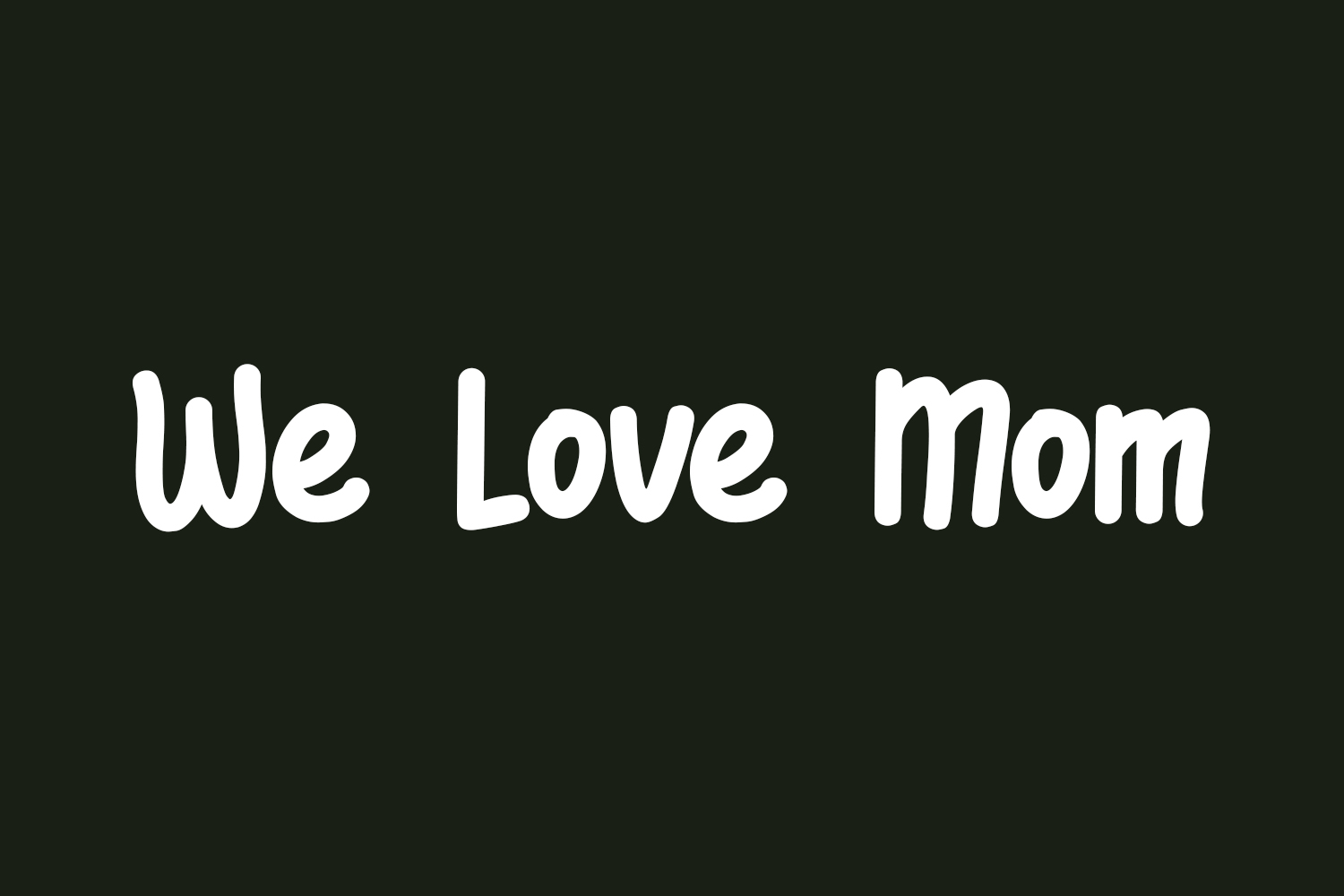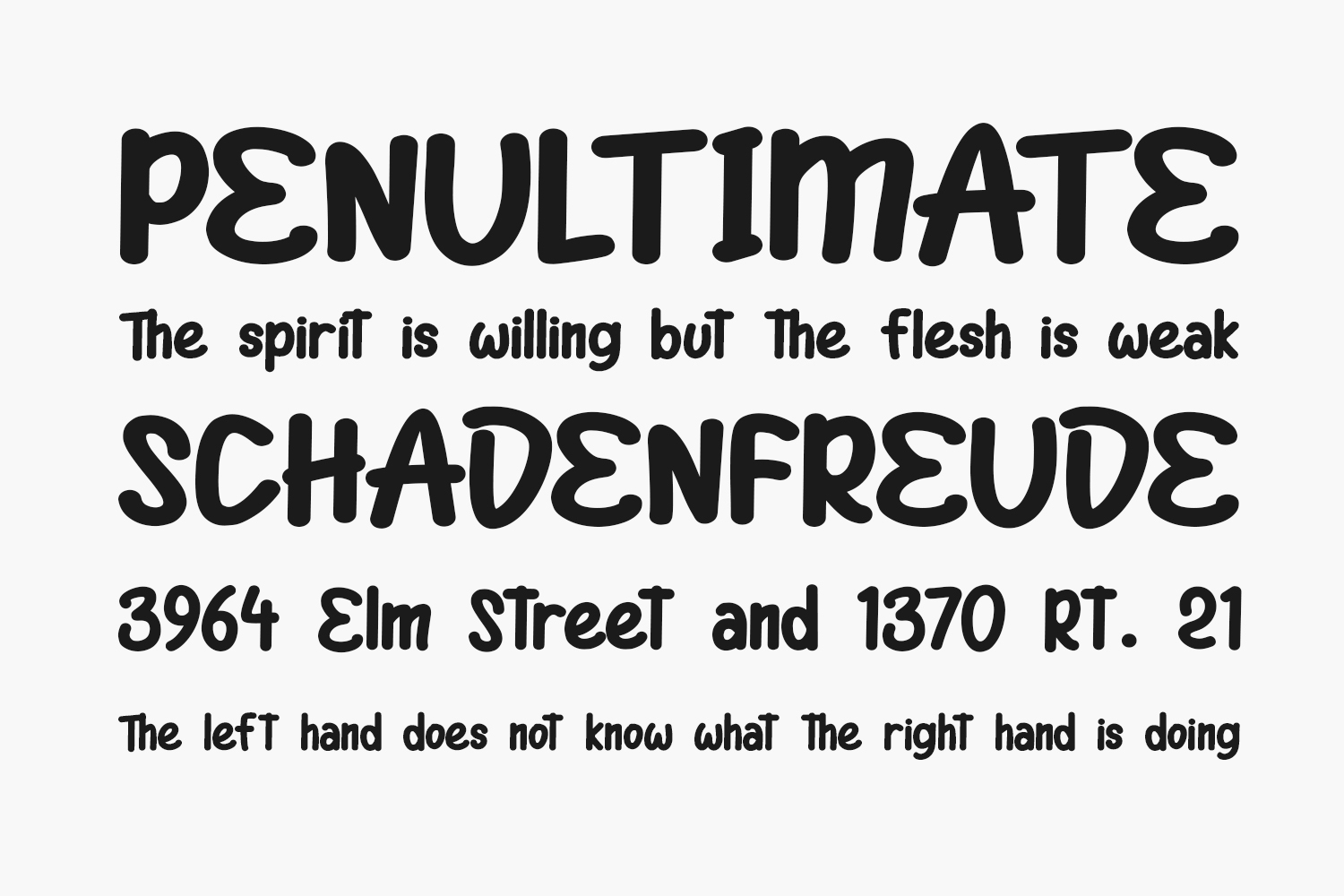
We Love Mom Free Font is a fabulous, elegant, and modern display font that’ll engage your audience and make your branding stand out. This stylish font can be used for a host of different content needs and projects. Perfect for social media branding projects, fashion designs, printed quotes, or even as a stylish text overlay to any background image and many more. We Love Mom Free Font was designed by Letterafa Studio and is free for personal use only. Please purchase the full version for commercial use.
Designed by Letterafa Studio